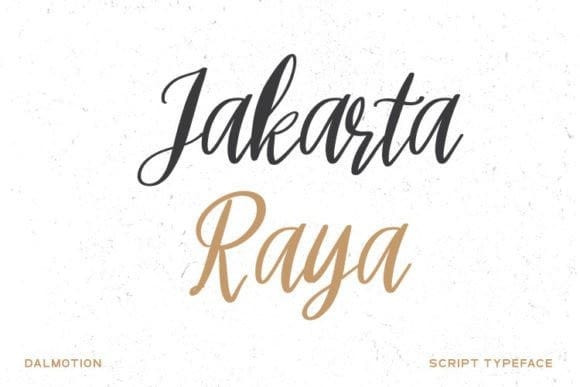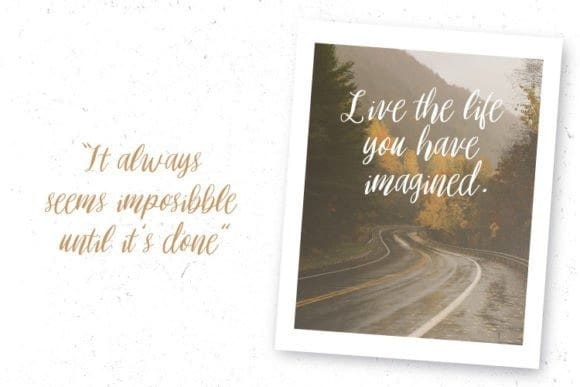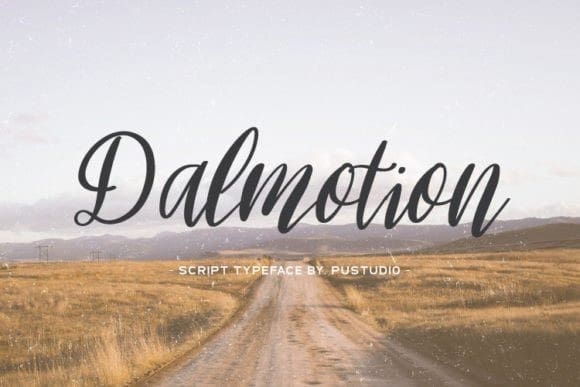
Dalmotion Script Font
Dalmotion Script Font is a beautiful script font that features fun and quirky characters that look good in any design. Add this font to your most creative ideas, and watch how it stands out!